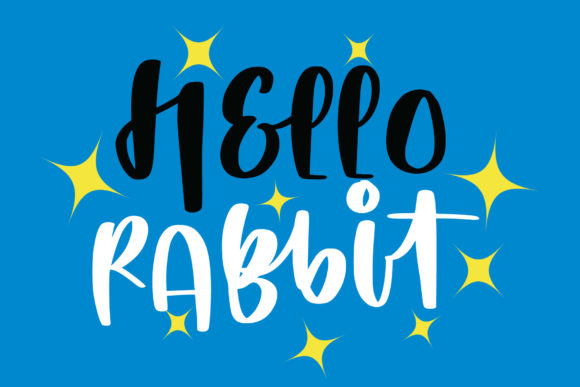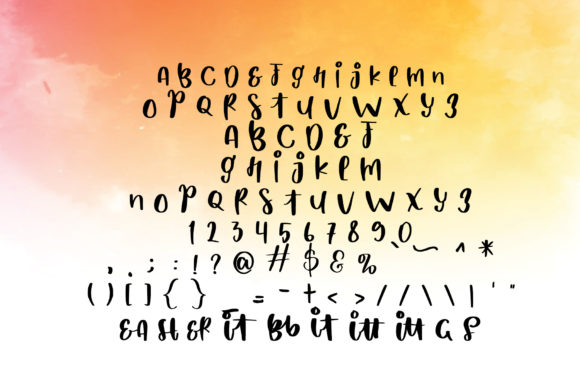
Hello Easter Font: The Perfect Addition to Your Easter-Themed Designs
Are you looking for a font that captures the playful and cheerful spirit of Easter? Look no further than the Hello Easter font! This adorable display font is specifically designed to bring a touch of whimsy and friendliness to your Easter-themed designs. In this article, we’ll take a closer look at the Hello Easter font, its features, and how you can use it to create stunning designs for kids and Easter enthusiasts alike.
What is Hello Easter Font?
Hello Easter is a cute, quirky, and friendly display font that’s perfect for creating eye-catching designs. Its unique and playful style makes it an excellent choice for children’s themed designs, Easter promotions, and spring-inspired projects. The font’s friendly and approachable vibe is sure to delight kids and adults alike, making it an excellent addition to your font collection.
Key Features of Hello Easter Font
- Cute and Quirky Design: The Hello Easter font boasts a charming and whimsical design that’s sure to capture the essence of Easter and spring.
- Perfect for Kids’ Designs: The font’s playful style makes it an excellent choice for children’s themed designs, including Easter eggs, bunny characters, and spring-themed illustrations.
- Bright and Bold: The Hello Easter font looks amazing when paired with bright and bold colors, making it perfect for designs that require a pop of color.
- Easily Readable: Despite its playful design, the Hello Easter font remains easily readable, making it suitable for headlines, titles, and short paragraphs.
How to Use Hello Easter Font in Your Designs
The Hello Easter font is incredibly versatile and can be used in a variety of design projects, including:
- Easter Cards and Invitations: Create adorable Easter cards and invitations that feature the Hello Easter font and make your loved ones smile.
- Kids’ Party Decorations: Use the Hello Easter font to create fun and colorful party decorations, including banners, garlands, and DIY crafts.
- Spring-themed Illustrations: Pair the Hello Easter font with your favorite spring-themed illustrations, including Easter bunnies, eggs, and flowers.
- Easter Promotions and Advertisements: Add a touch of whimsy to your Easter promotions and advertisements with the Hello Easter font.
Tips for Getting the Most Out of Hello Easter Font
To make the most of the Hello Easter font, here are a few tips to keep in mind:
- Experiment with Colors: The Hello Easter font looks amazing when paired with bright and bold colors, so don’t be afraid to experiment and find the perfect color combination for your design.
- Mix and Match Fonts: Combine the Hello Easter font with other fonts to create a unique and visually appealing design.
- Use it for Headlines and Titles: The Hello Easter font is perfect for headlines and titles, so use it to add a touch of whimsy to your design.
The Hello Easter font is a delightful addition to any designer’s font collection. Its playful and quirky style makes it perfect for Easter-themed designs, kids’ party decorations, and spring-inspired illustrations. With its easily readable design and bright, bold style, the Hello Easter font is sure to bring a smile to anyone’s face. So why not give it a try and see how you can use it to create stunning Easter-themed designs?